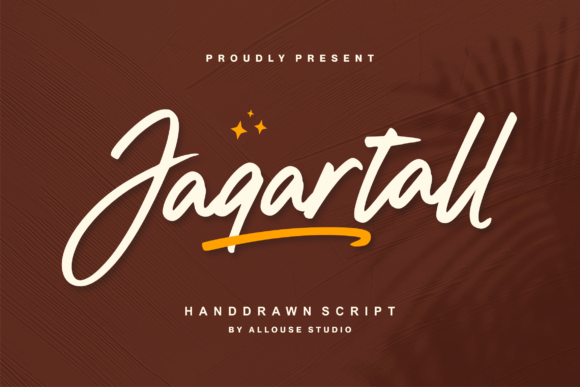
Introducing Jaqartall Font, the captivating script font designed to transform your digital creations into a visual masterpiece. With its meticulous craftsmanship and intricate details, this font is more than just a collection of characters; it's an artistic expression that breathes life into your designs.
Dive into the world of Jaqartall and be mesmerized by its mesmerizingly flowing lines, elegant curves, and stunning swashes. Each letter is a work of art, carefully shaped to evoke emotions and captivate your audience. Whether you're designing logos, branding materials, wedding invitations, or social media posts, Jaqartall will add a touch of timeless elegance and sophistication to your projects.
Unleash your creativity with Jaqartall's extensive character set, including uppercase, lowercase, numerals, punctuation, and a treasure trove of ligatures and alternate glyphs. Experiment with different combinations to create unique typographic compositions that resonate with your audience. The possibilities are endless, and the only limit is your imagination.
As a bonus, Jaqartall is PUA encoded, allowing you to effortlessly access the full range of glyphs and swashes with ease. No need for complicated software or workarounds; simply type away and watch as Jaqartall transforms your words into captivating works of art.
Step into the realm of extraordinary typography with Jaqartall Font. Its versatility knows no bounds, making it the perfect choice for a wide range of design projects. From enchanting logos that leave a lasting impression to heartfelt wedding invitations that convey your love and commitment, Jaqartall is the font that speaks volumes without uttering a single word.